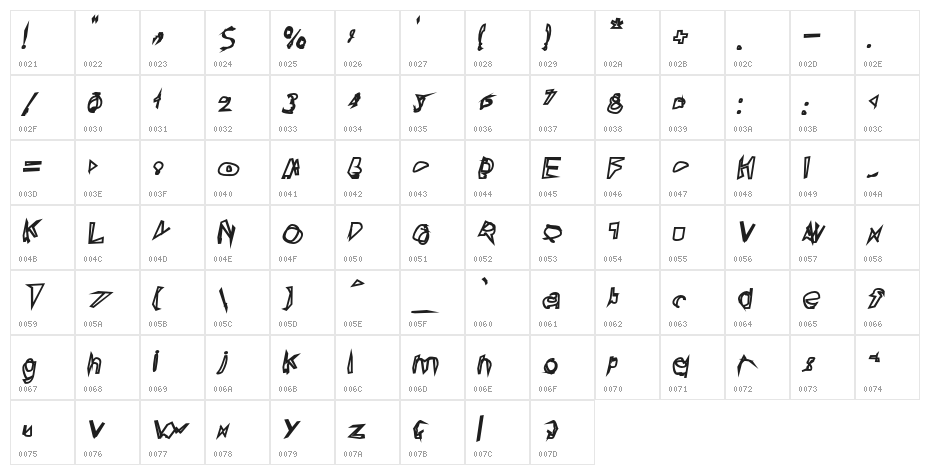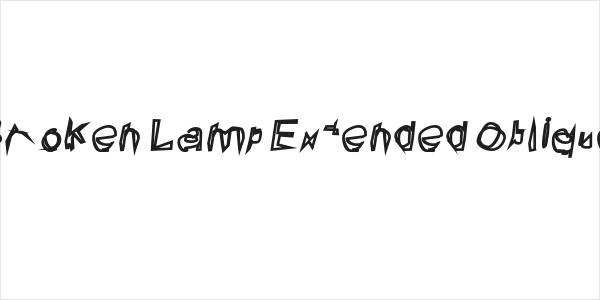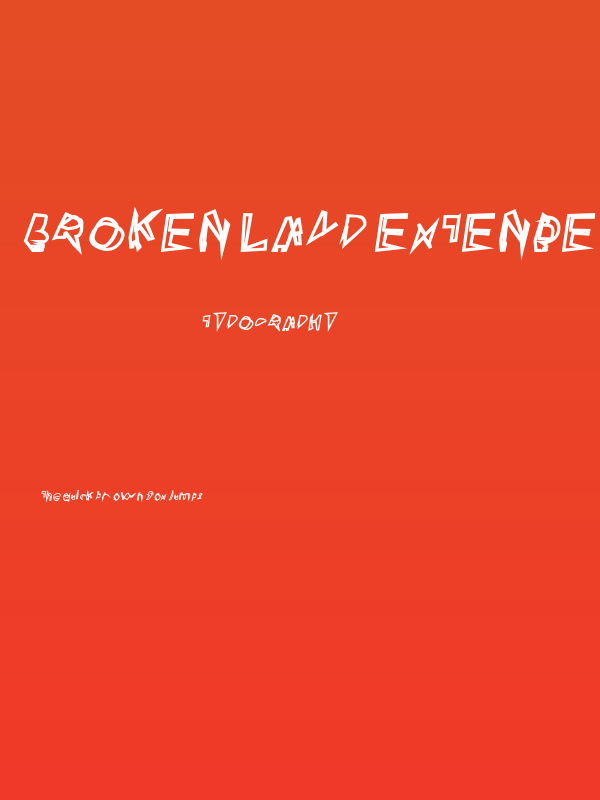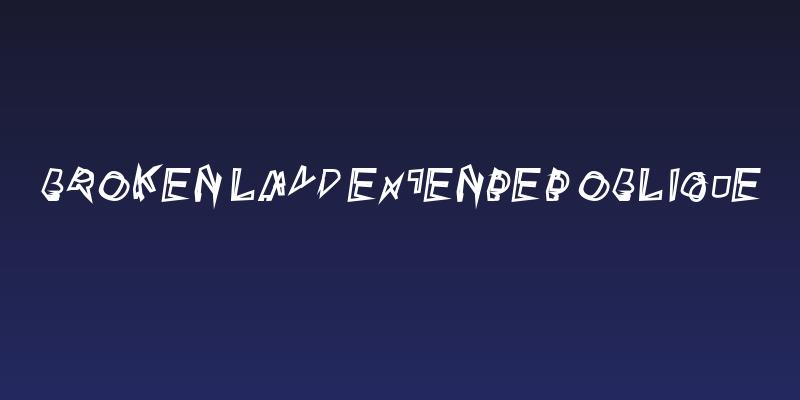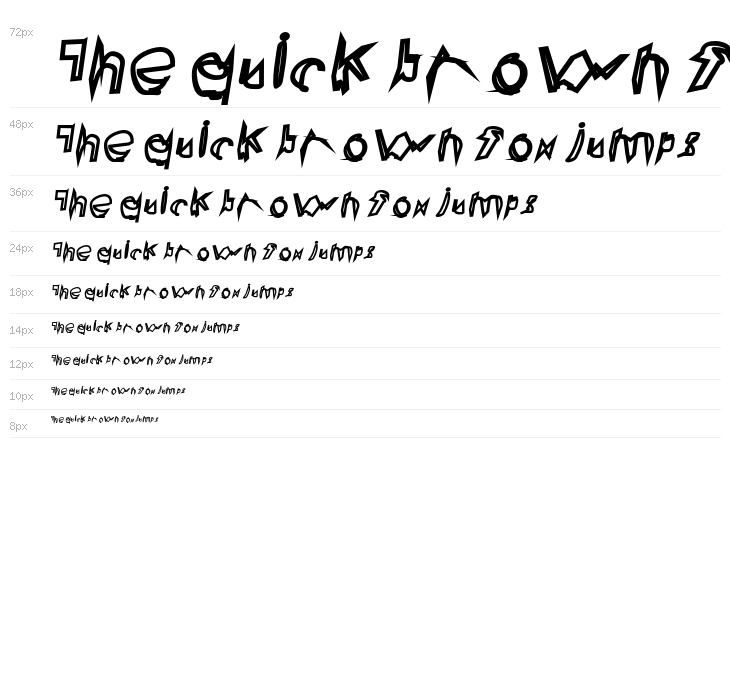
Broken Lamp Extended Oblique Font
Broken Lamp Extended Oblique Description
This font features a highly stylized and abstract design, characterized by sharp angles and irregular shapes that give it a chaotic and edgy appearance. The letters are bold and dynamic, with a sense of movement and energy, resembling shattered glass or jagged shards. The uppercase and lowercase letters maintain this fragmented style, creating a cohesive yet unconventional look. Numbers and special characters follow the same design principles, ensuring consistency across all elements. This font's unique aesthetic makes it stand out, offering a distinct visual impact.
| Proposed Projects | Ideal for projects that require a bold and unconventional look, such as album covers, posters, or branding for edgy or alternative brands. |